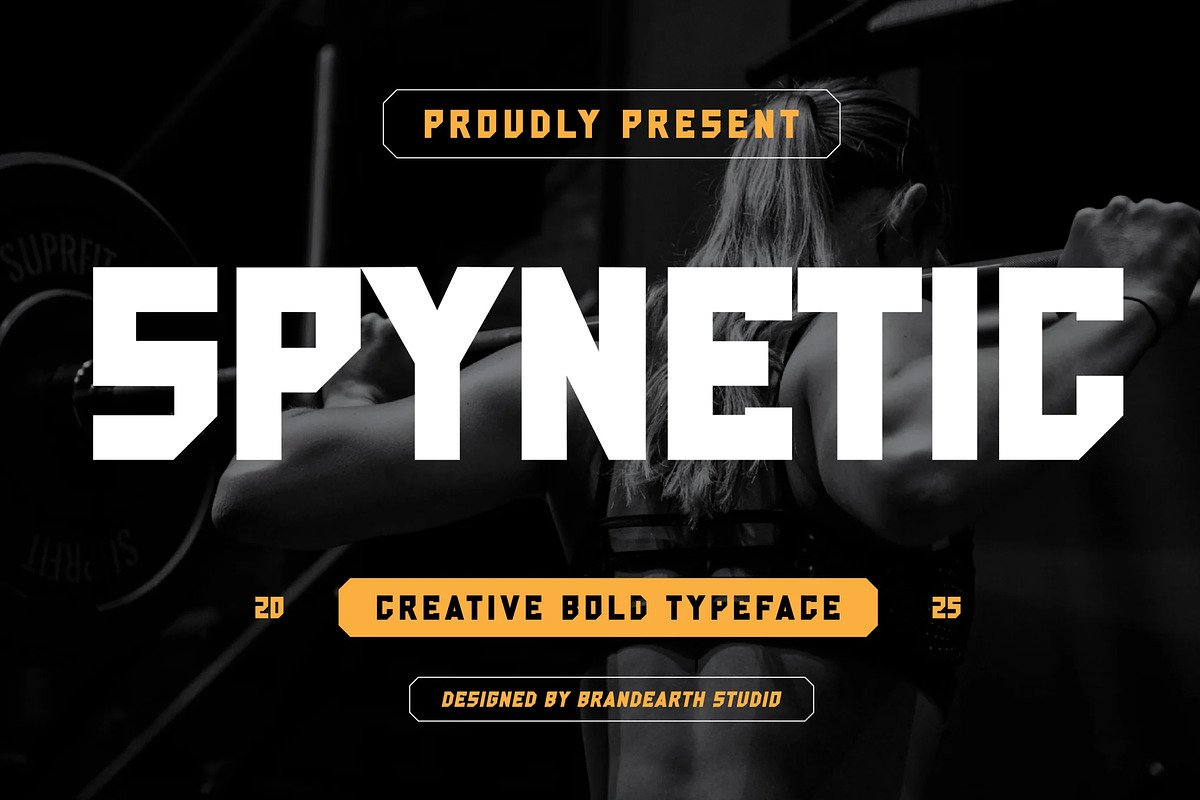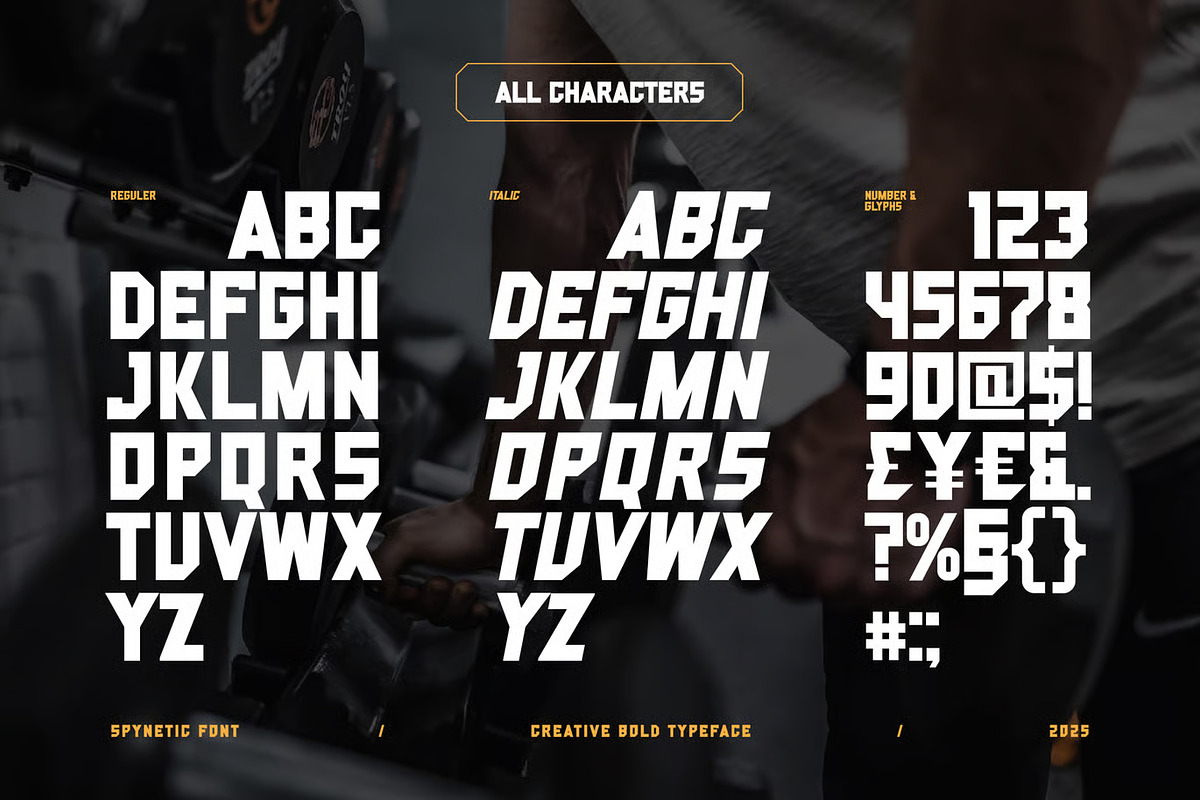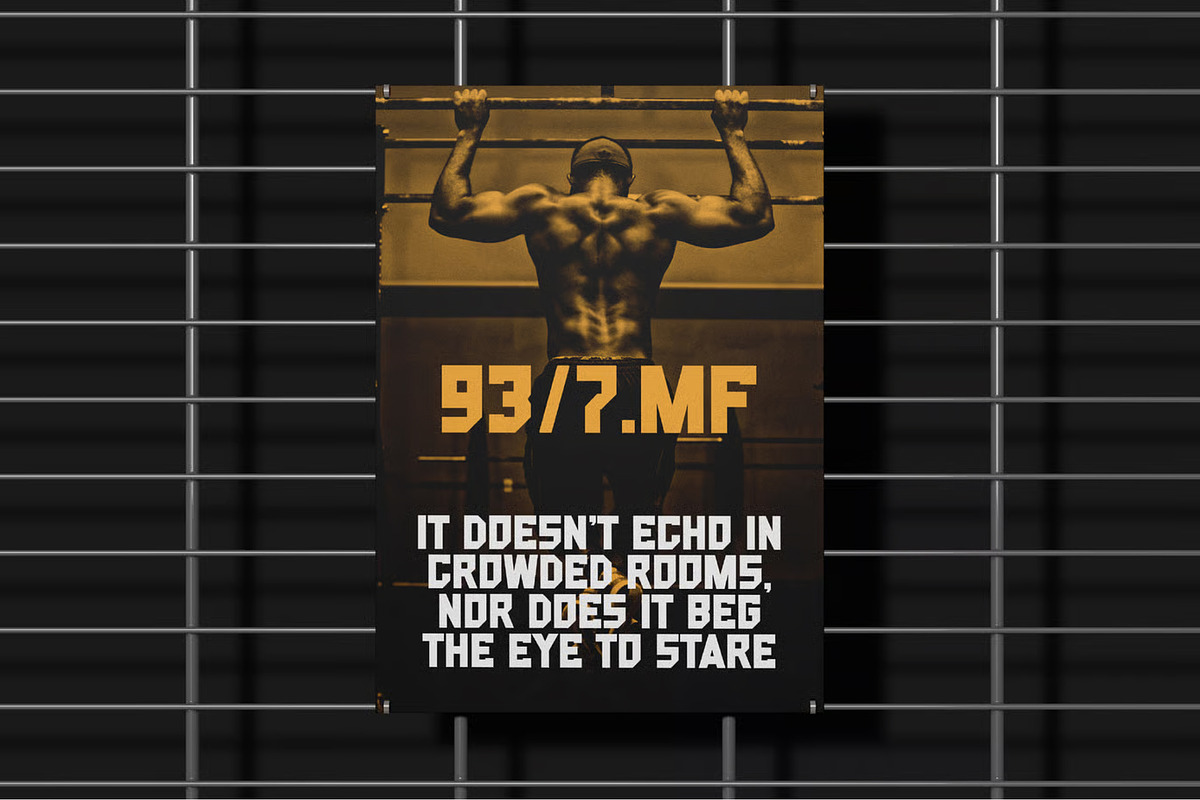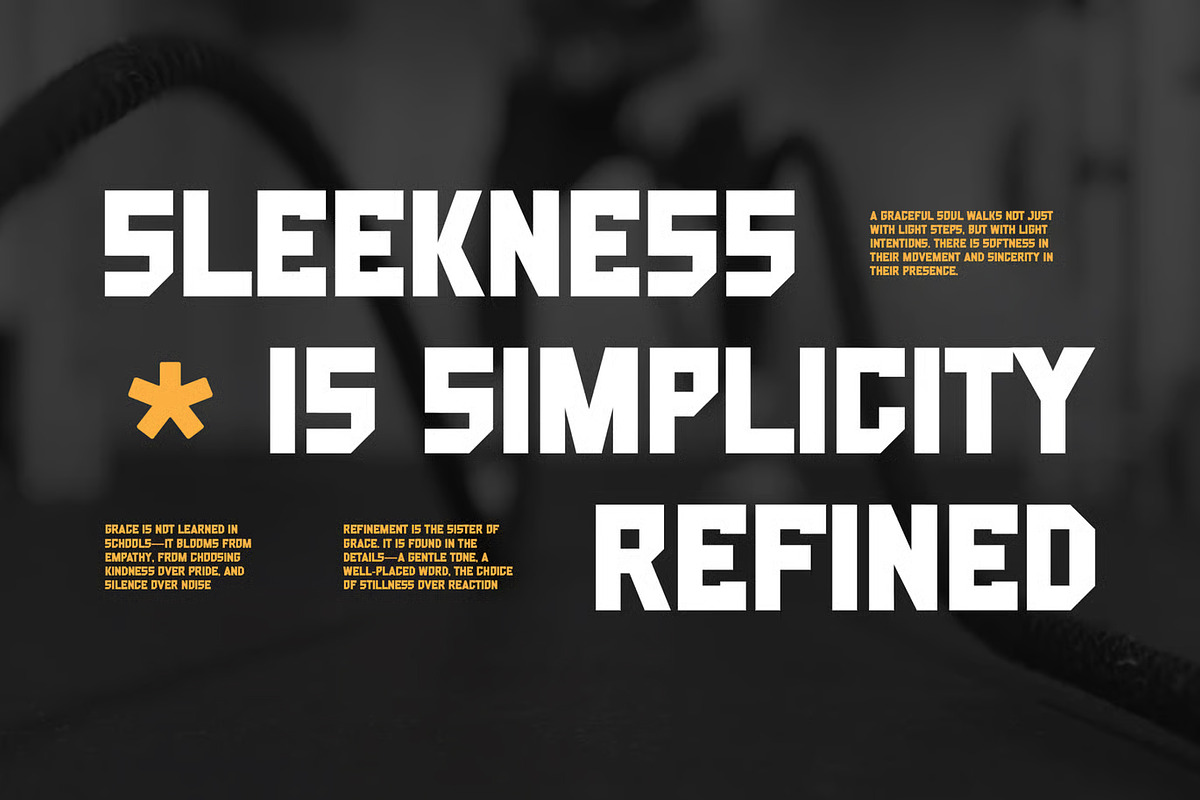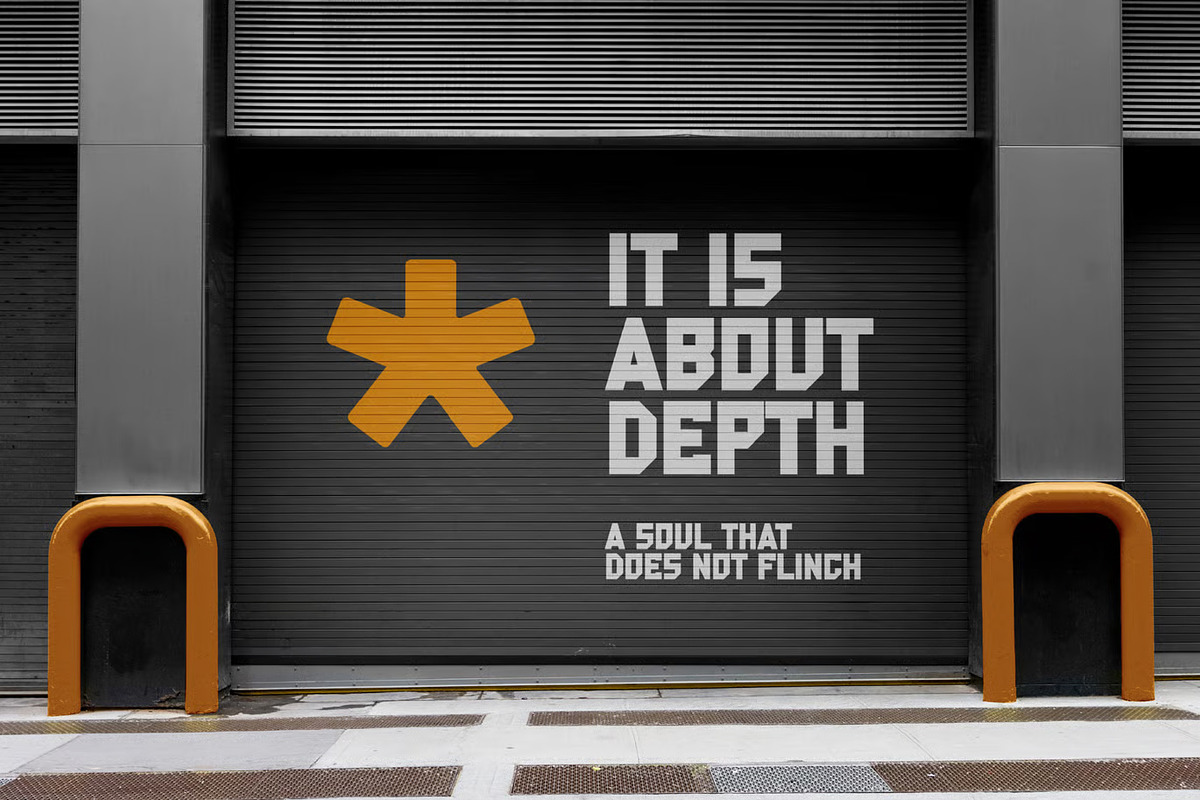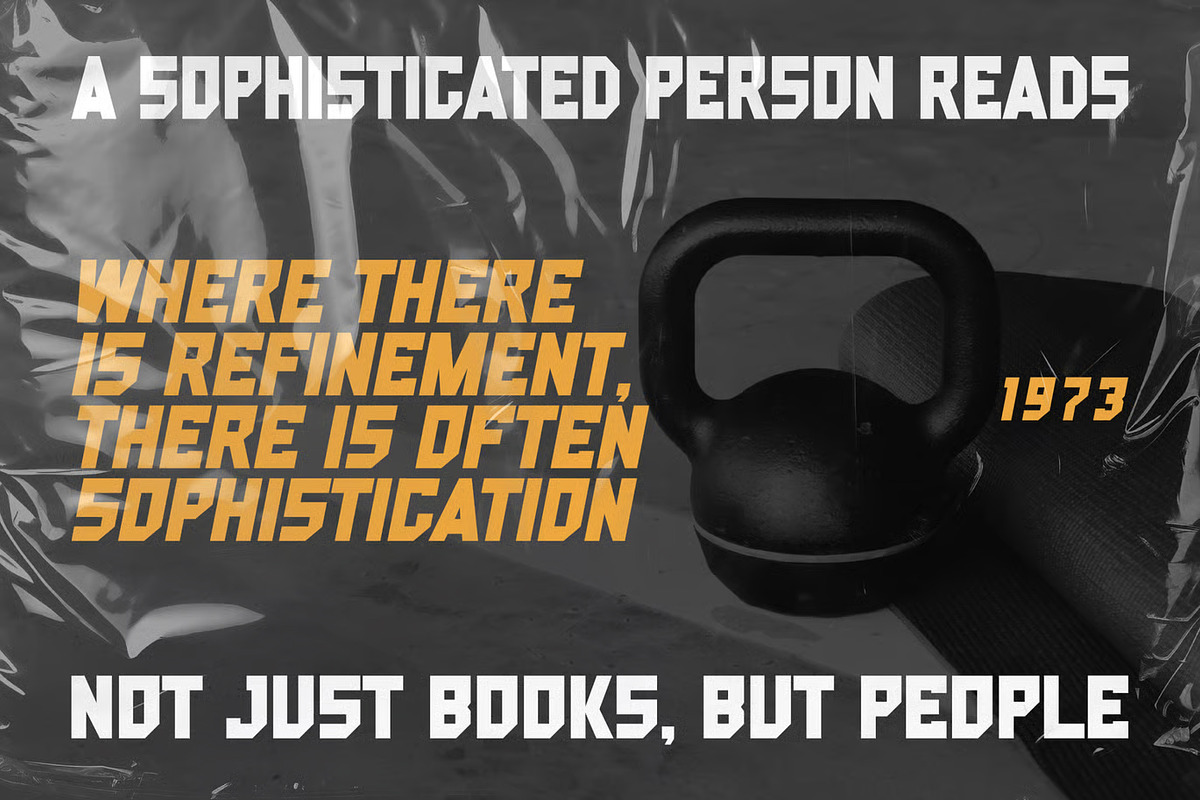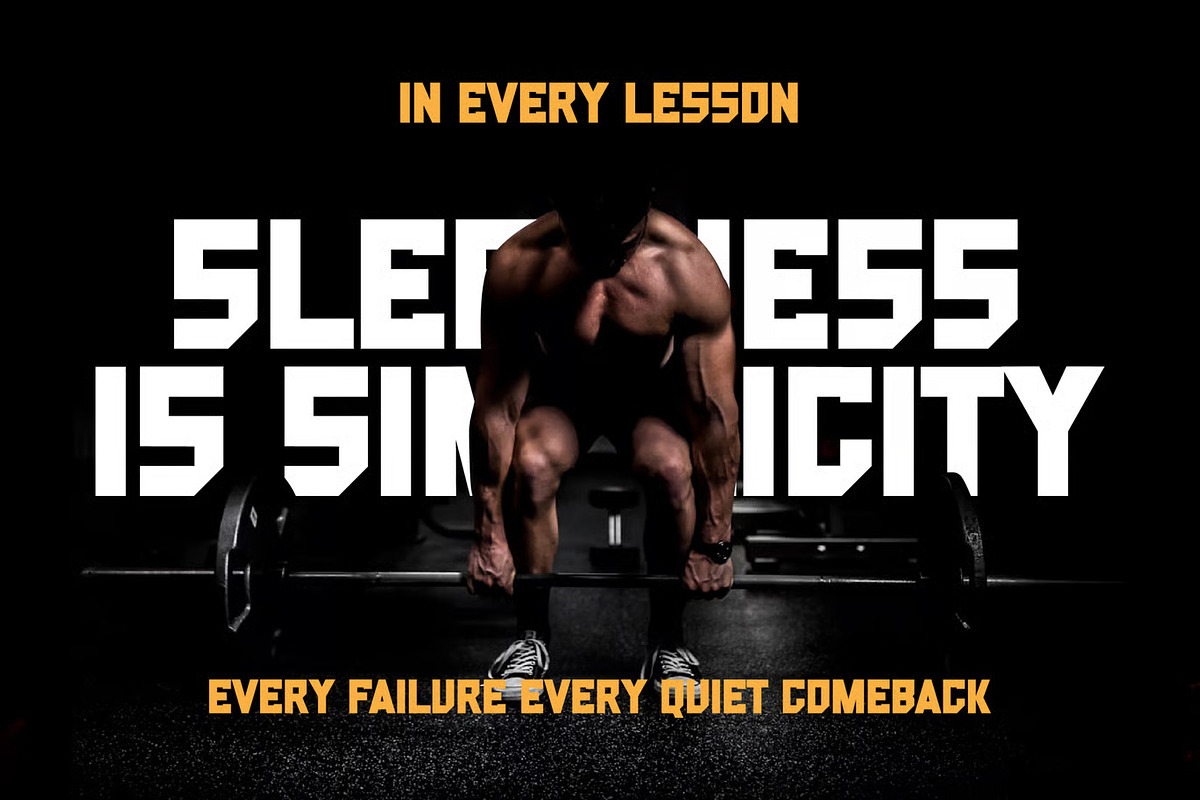
Spynetic - Athletic Display Font
Spynetic is a strong and dynamic bold display font designed for powerful and high-impact visuals. It features sharp, geometric letterforms with an industrial and athletic feel, making it perfect for sports branding, gym promotions, posters, logos, and merchandise. The aggressive and edgy style of Spynetic brings energy and confidence to any design, helping your message stand out with a bold and commanding presence. Ideal for projects that need a tough and modern look!
The letterforms in Spynetic are built with sharp, geometric cuts and an aggressive structural rhythm, creating a commanding presence that gives the typeface its tough, industrial character. It features a high-impact display quality that's perfect for sports branding, gym promotions, and bold merchandise design.
With its edgy structure and athletic energy, Spynetic bridges the gap between raw power and modern precision. It delivers a confident, commanding feel while remaining highly legible, making it ideal for posters, logo design, and high-energy marketing campaigns.
Main Features
Regular & Italic Font Style
Ligatures & Alternate
Numeral & Punctuations
Suitable For: sports branding, gym promotions, posters, logo design, merchandise, esports graphics, fitness branding, streetwear design, bold headlines, athletic apparel, event promotion, digital banners, signage design, advertising, motorsport graphics, gaming visuals, tech branding, industrial design, product packaging, high-impact marketing.